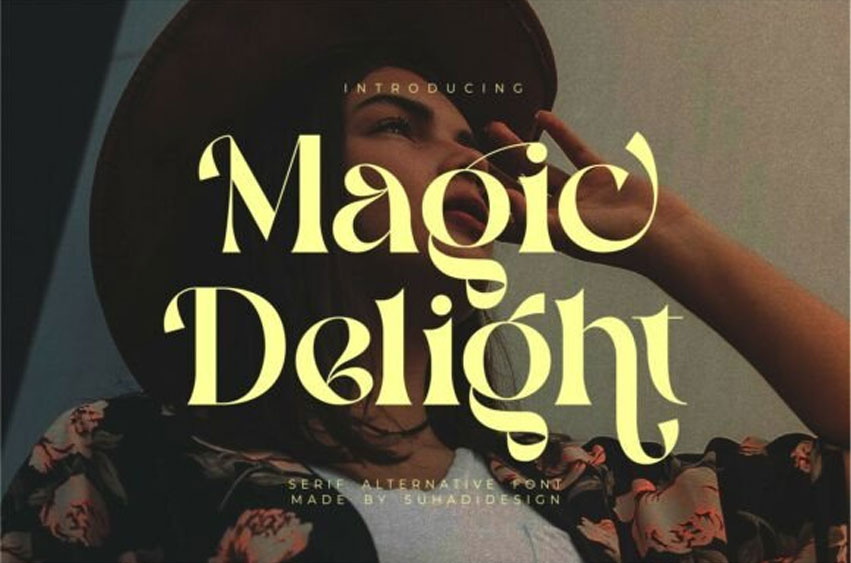
Magic Delight Font
Magic Delight Font is a high-contrast modern serif display font infused with elegance and artistic flourish. Characterized by its graceful curves, tapered terminals, and dramatic stylistic alternates, this typeface evokes luxury and editorial sophistication.
Its unique letterforms—especially the sculptural loops, sweeping descenders, and expressive ligatures—offer a sense of movement and refinement, making it ideal for upscale branding, magazine titles, packaging, and fashion lookbooks. The font also includes a versatile set of alternates and ligatures, allowing for a wide range of typographic expression with both uppercase and lowercase pairings.